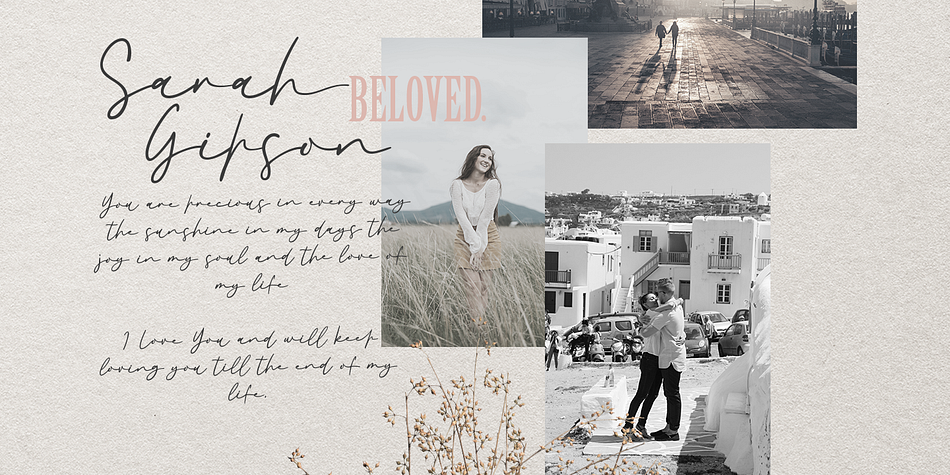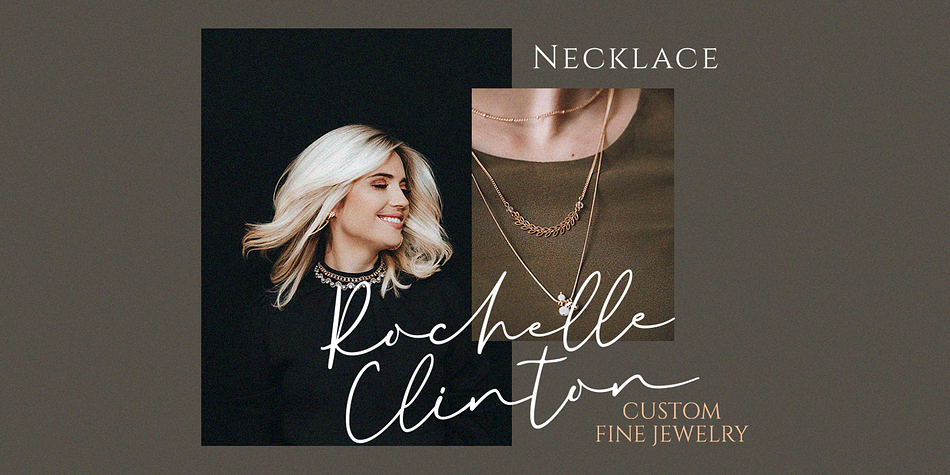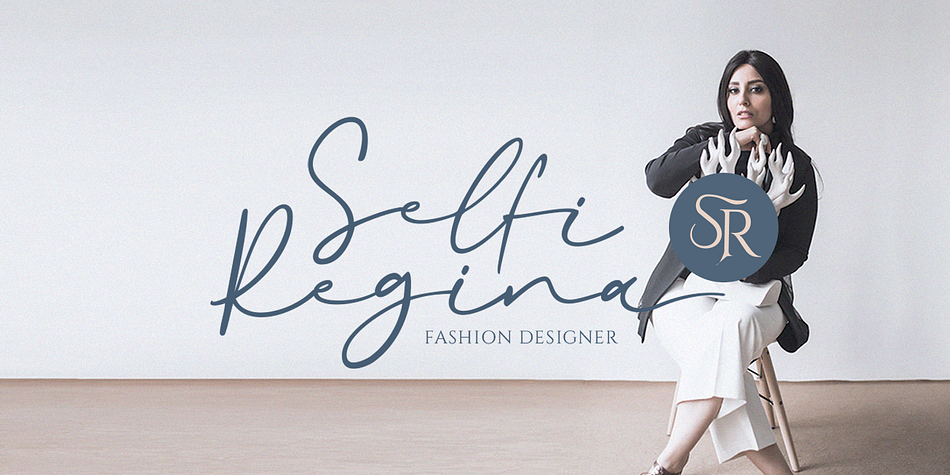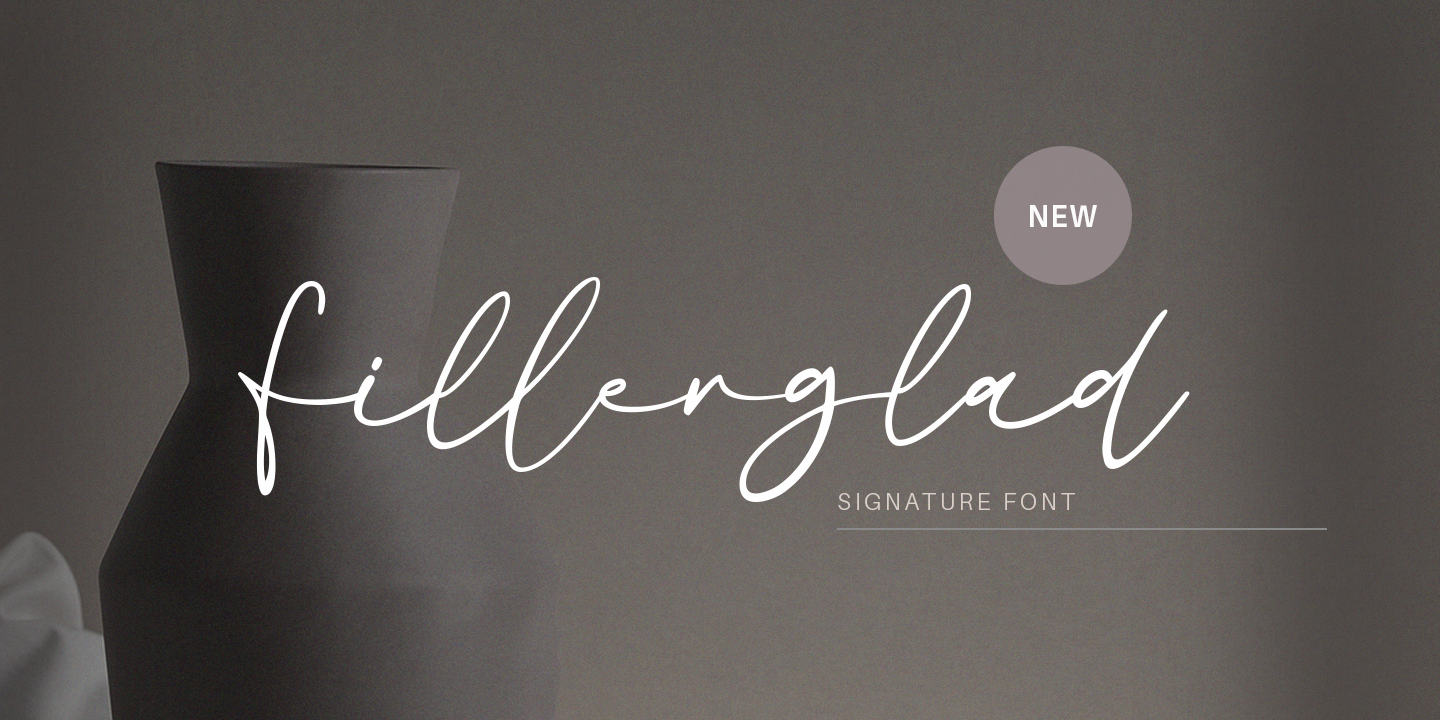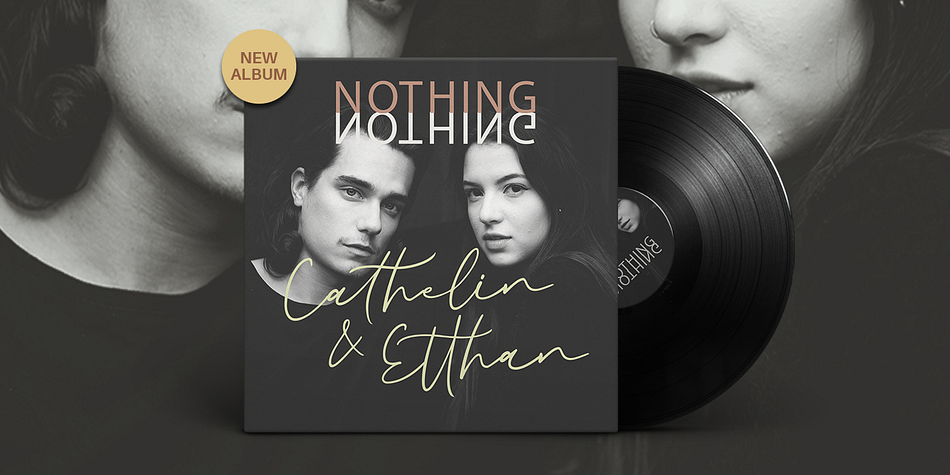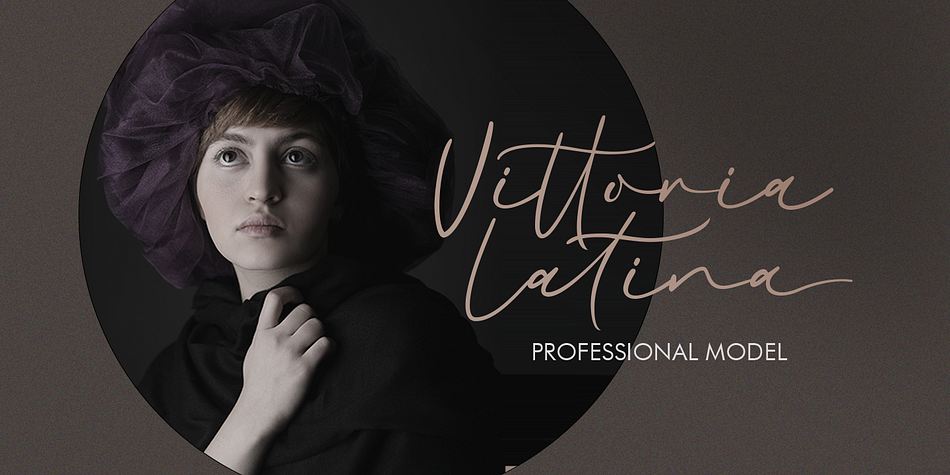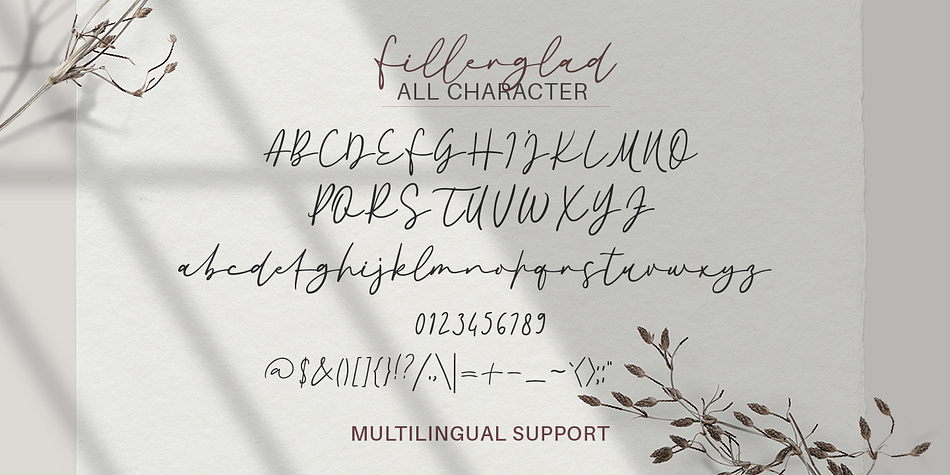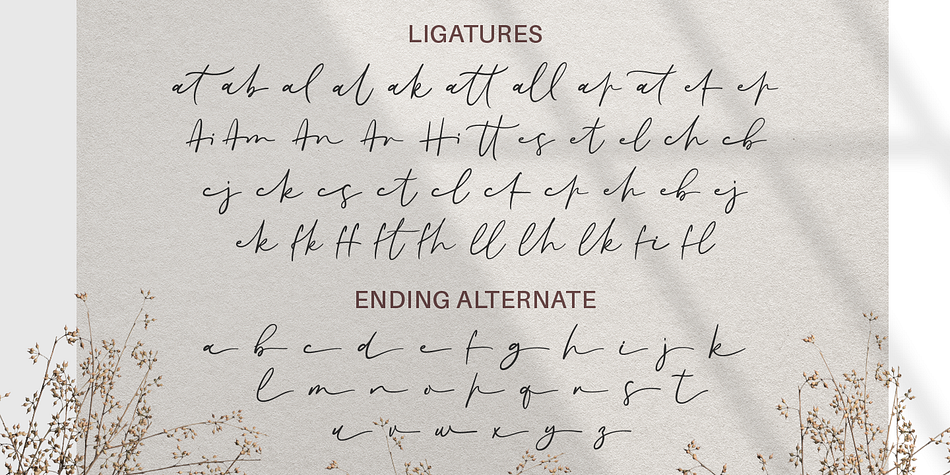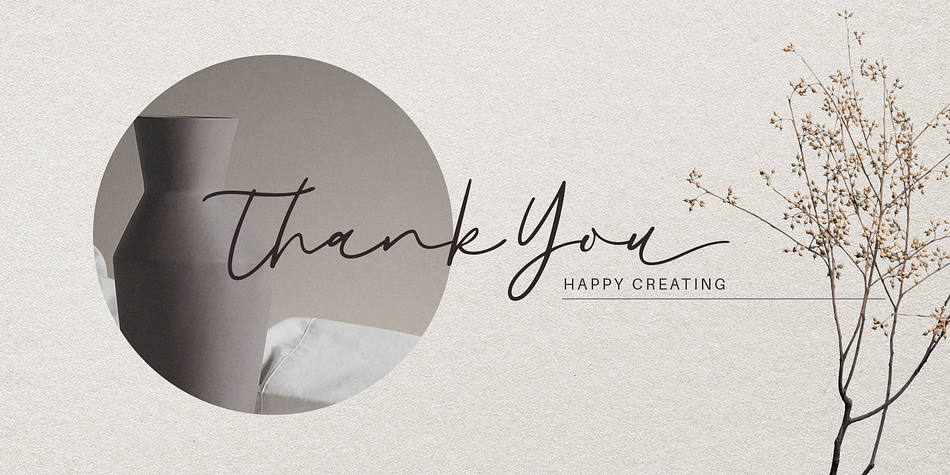
Designed by Hendry Juanda, Fillerglad is a modern calligraphy and script font published by Letterhend Studio.
Introducing, Fillerglad Script - an authentic hand writing with natural signature style. This type of font perfectly made to be applied especially in logo, and the other various formal forms such as invitations, labels, logos, magazines, books, greeting / wedding cards, packaging, fashion, make up, stationery, novels, labels or any type of advertising purpose.
- alternates and ligatures
- swashes